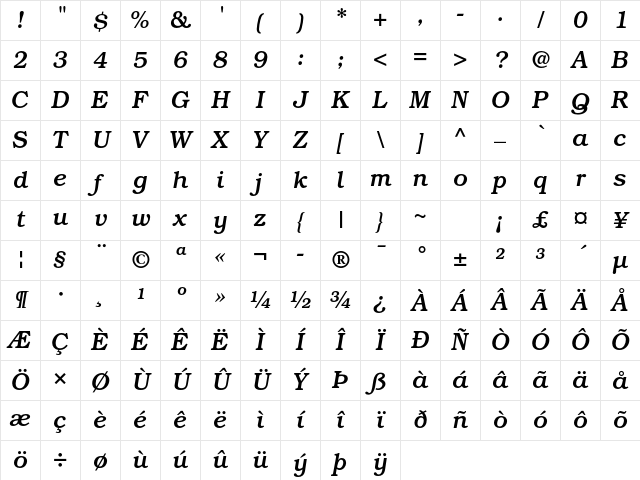
ITC Bookman Std Medium Italic
Designer: Ed Benguiat
Complete ITC Bookman Std Medium Italic glyph index. Displaying only characters natively supported by ITC Bookman Std Medium Italic font.
Design Context for ITC Bookman Std
ITC Bookman Std is a composed and adaptable typeface that performs quietly and consistently across a wide range of design contexts. The slanted form adds forward momentum and visual energy.
Pro Tip: Use ITC Bookman Std for emphasis, pull quotes, and subheadings where its slanted energy can add rhythm to the layout.